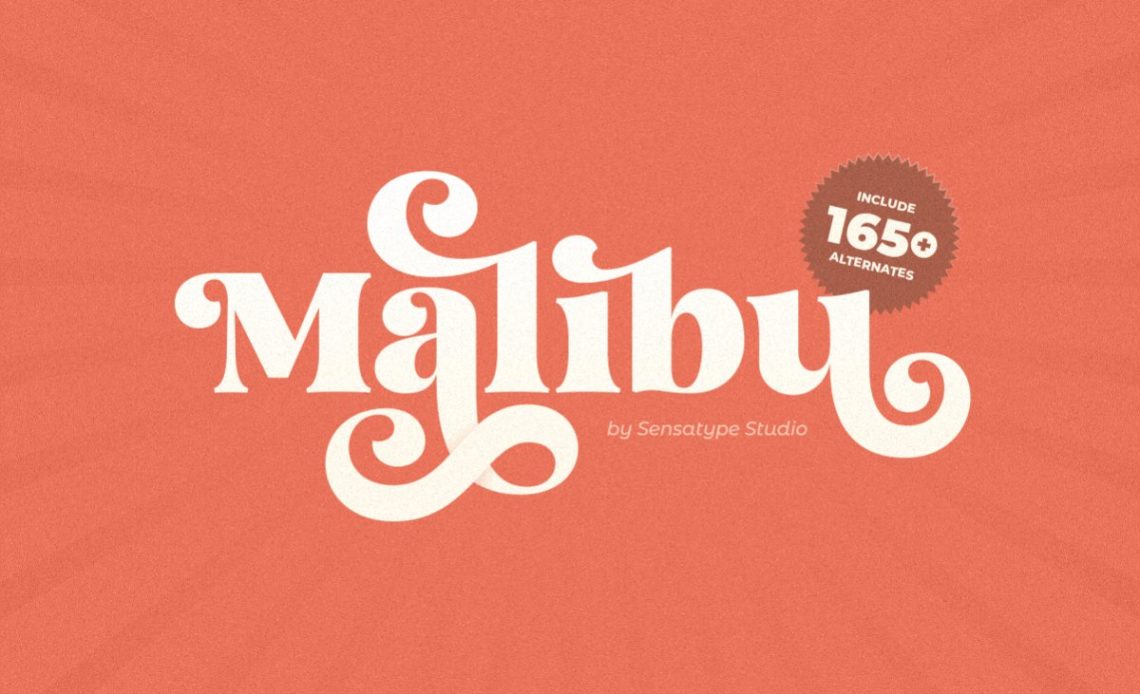
Introducing Malibu Fancy Vintage Font, a well-balanced and contemporary font that exudes fancy, playful, and unique vibes. Created by Muhammad Zamroni Hamzah, this font family boasts 165+ alternates that can be combined to create stunning curves and shapes in just seconds.
This display font is the perfect choice for branding projects, wedding designs, social media posts, advertisements, product packaging, product designs, labels, photography, watermarks, invitations, stationery, and any other projects that require a high level of legibility.
With its moderate contrast, Malibu font delivers a vintage aesthetic that is both timeless and versatile. The font includes uppercase and lowercase characters, numerals, and punctuation, making it suitable for a wide range of applications.
Whether you're a graphic designer, marketer, or simply someone looking to elevate your brand's visual identity, Malibu font is the perfect choice. Its captivating and eye-catching appearance is sure to grab the attention of your target audience and convey the message you want to deliver.